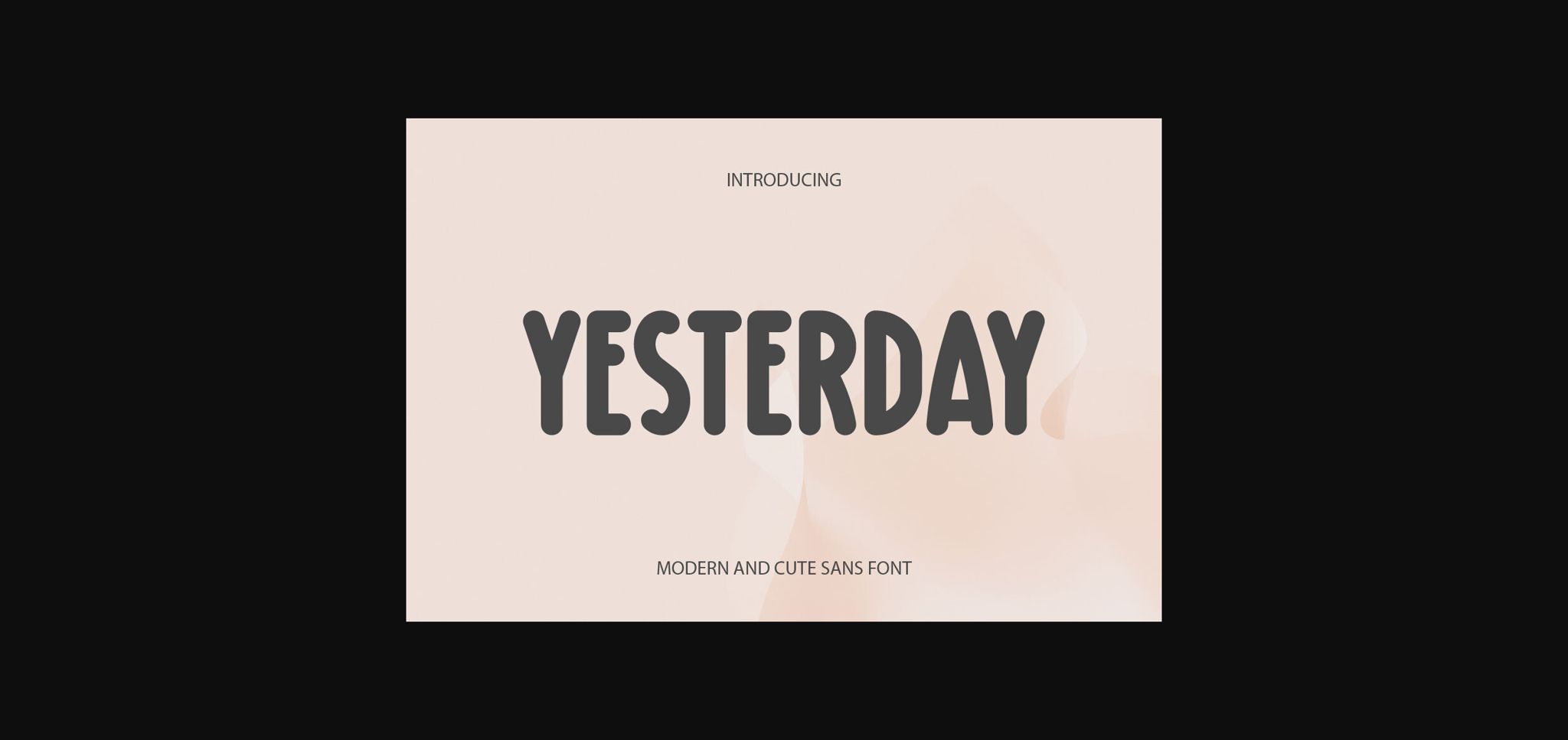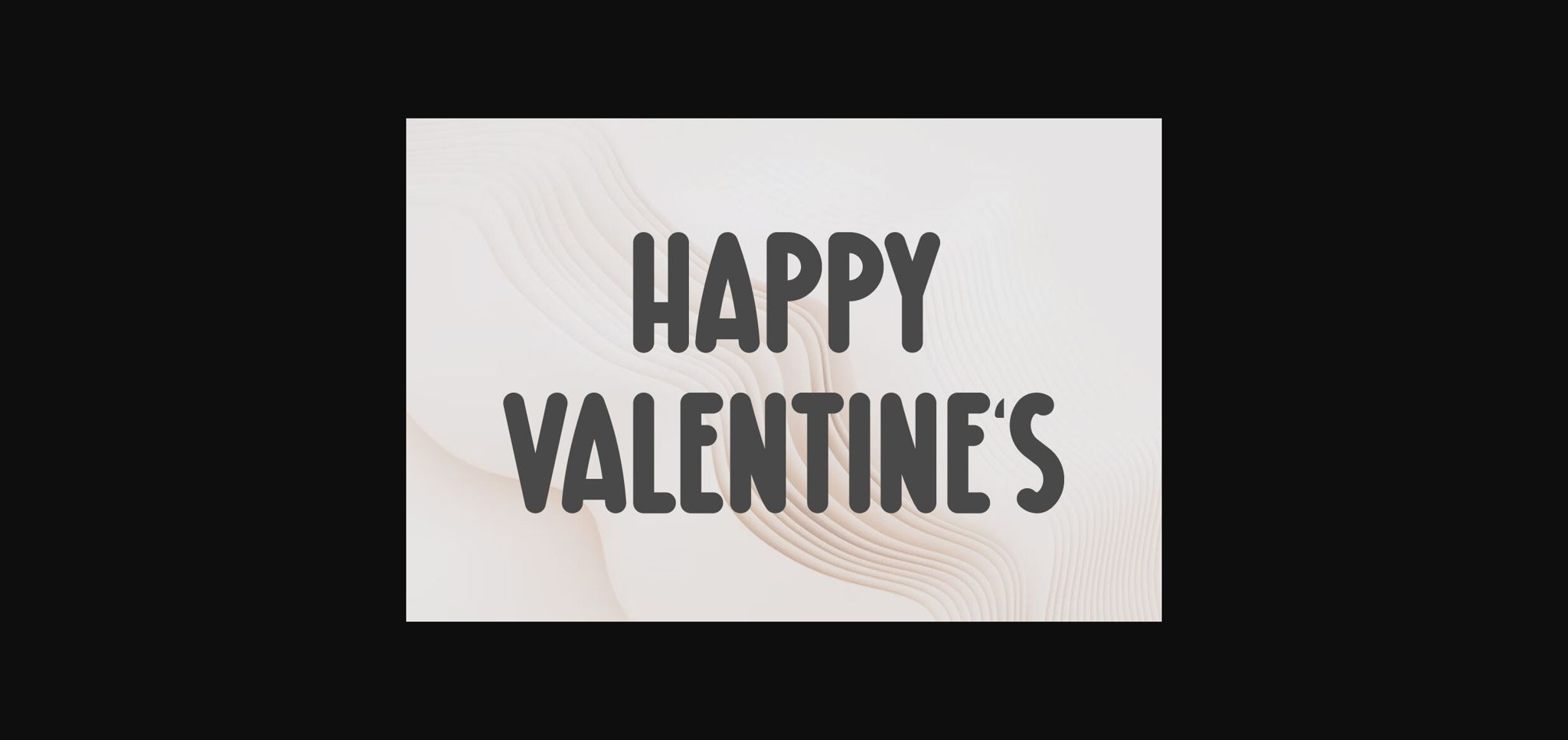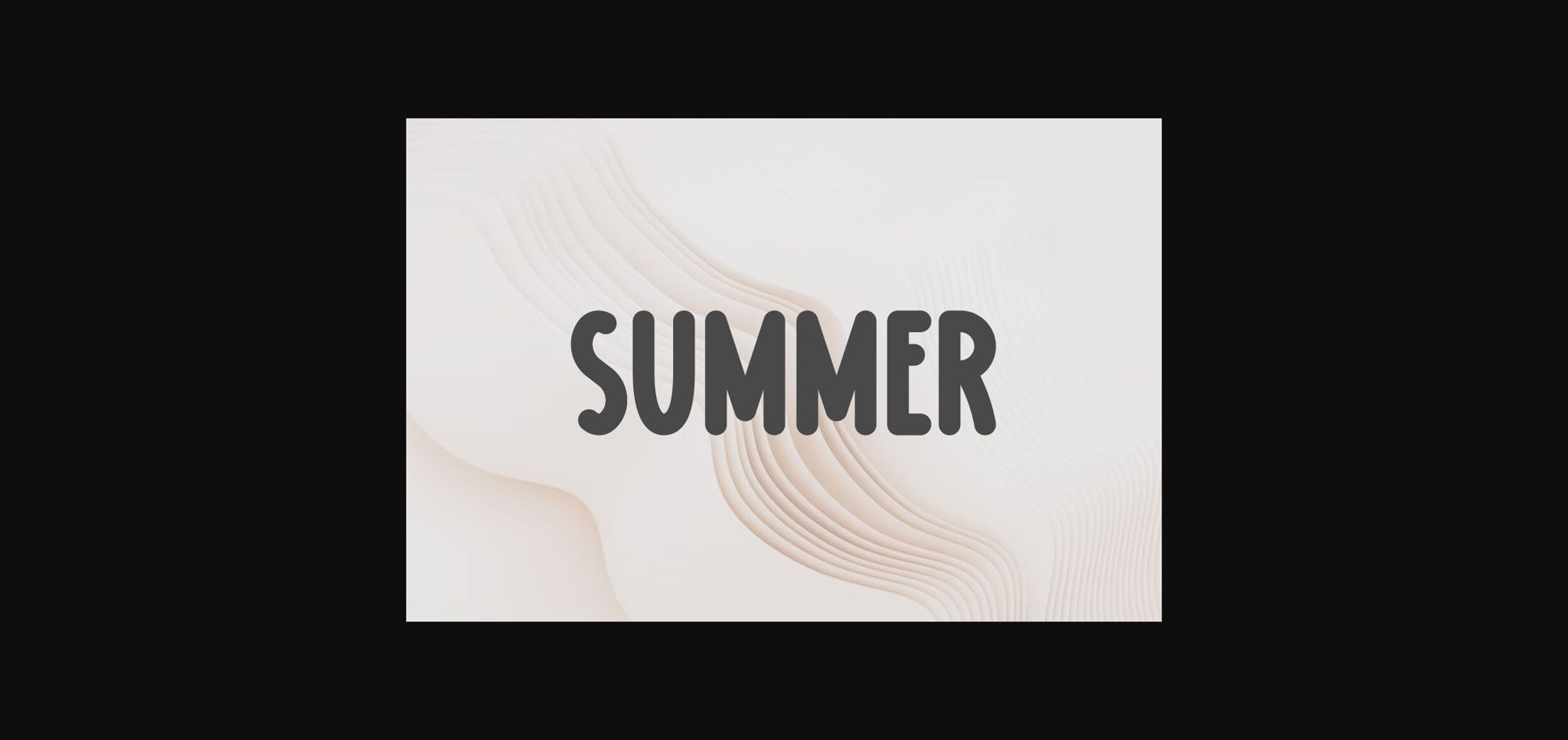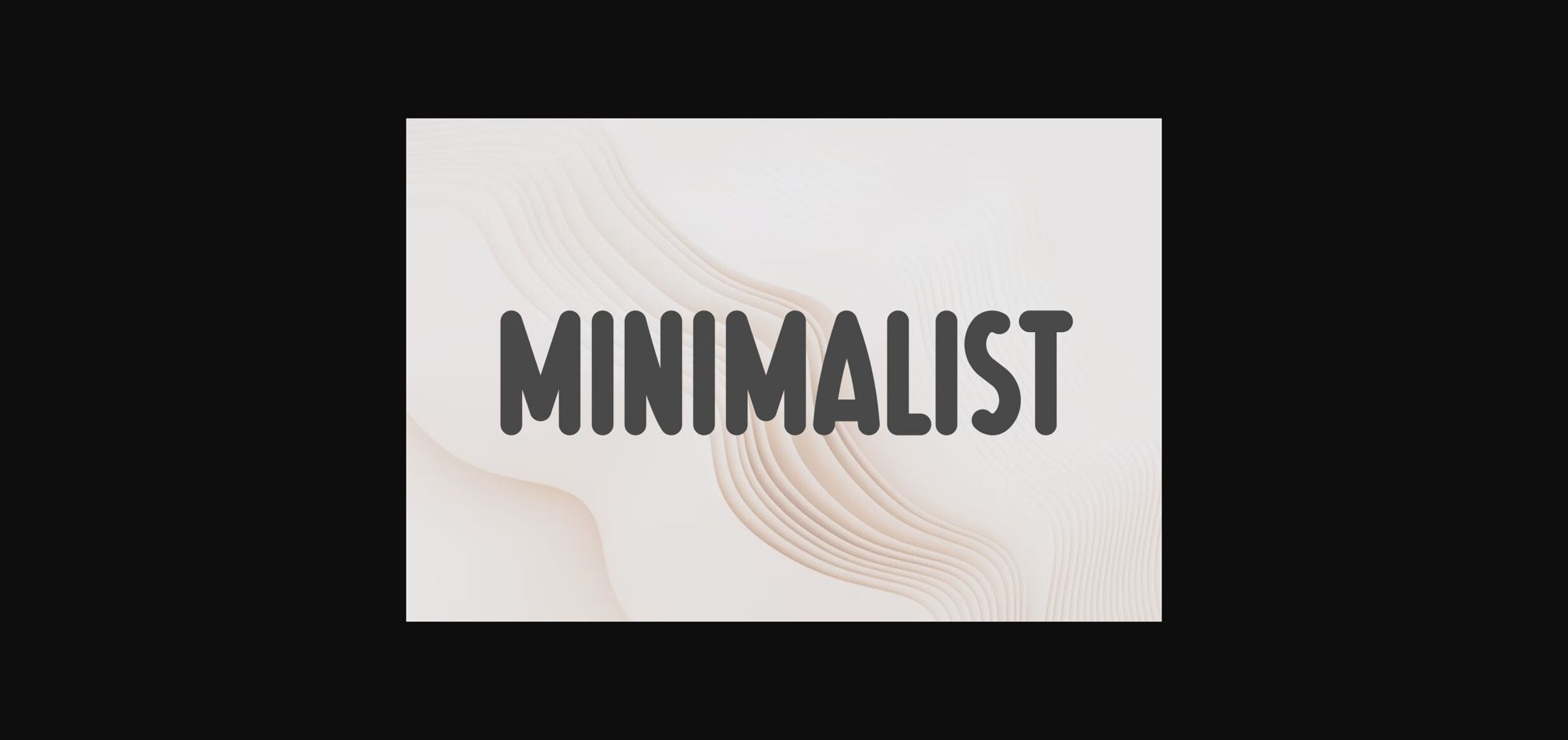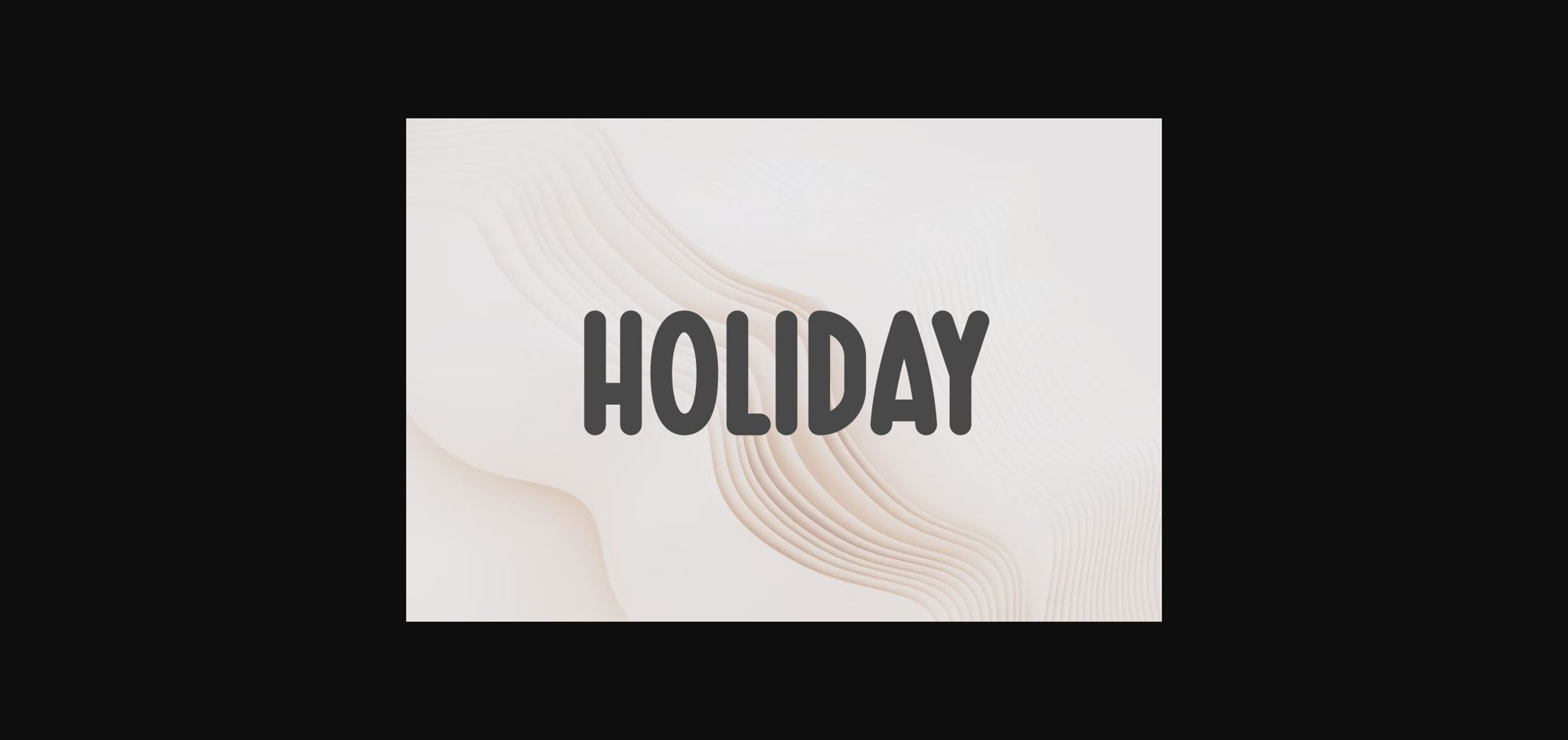
Yesterday Font
About Yesterday Font
Yesterday is a cute and modern Sans Serif font. Whether you’re using it for crafts, digital design, presentations, packaging, label, cards, t-shirt or making greeting cards, this font has the potential to become your favorite go-to font, no matter the occasion